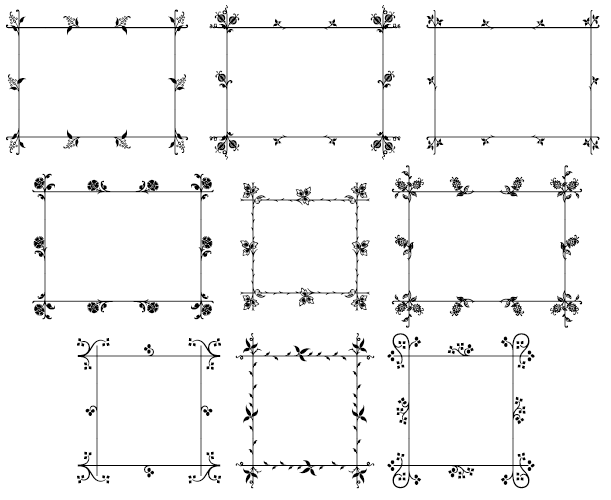
HomeFont BrosDingbatMFC Botanical Borders DingbatHistorical MFC Botanical Borders FacebookXPinterestWhatsApp 1 of 1 About MFC Botanical Borders The inspiration source for MFC Botanical Borders is a collection of border treatments from the 1886 ?Sp  DOWNLOAD NOW People also explored Coffee Phylosophy Font Simply Neatly Font Vorg Font Monogram Spring Font Destiny Font Ofstrike Font Yoghurt Black Font Yildiz Flowers Font 235 0 TagsMFC Botanical Borders Font Previous articleYWFT KnitNext articleCloudbuster LEAVE A REPLY Cancel reply Comment: Please enter your comment! Name:* Please enter your name here Email:* You have entered an incorrect email address! Please enter your email address here Website: Save my name, email, and website in this browser for the next time I comment. Personal Use Free Love Story Personal Use Free Read more about this font Santhony Personal Use Free Read more about this font Krase Personal Use Free Read more about this font Valentines Day Personal Use Free Read more about this font BLOG Transform Your Website: Elevate Your Typography with 7 Best Web Font Generators Are you ready to transform your website's typography from ordinary to extraordinary? Great! Today, we're diving into the world of web font generators, which... Free Fonts Risk: Why Free Fonts Can Be Dangerous for Designers Free vs Paid Fonts: Why Investing in Premium Fonts Is Worth It 5 Fonts That Will Dominate Design Trends in 2026